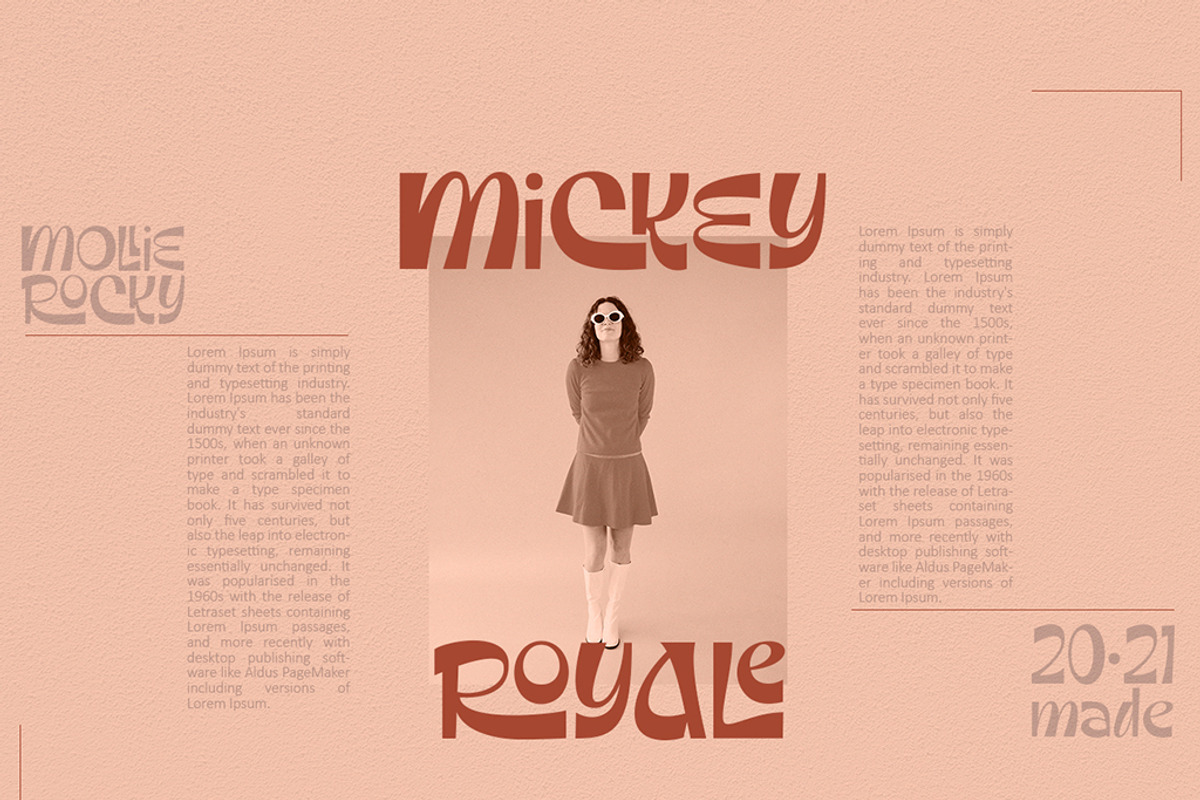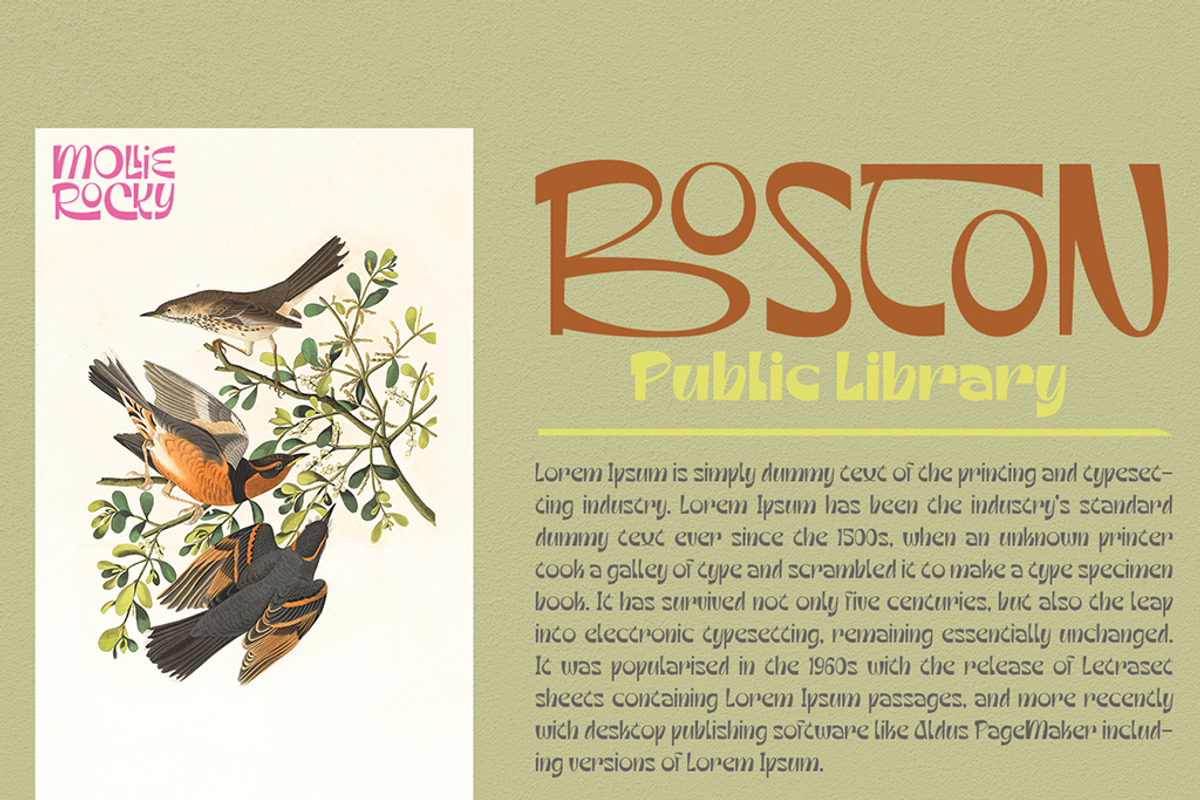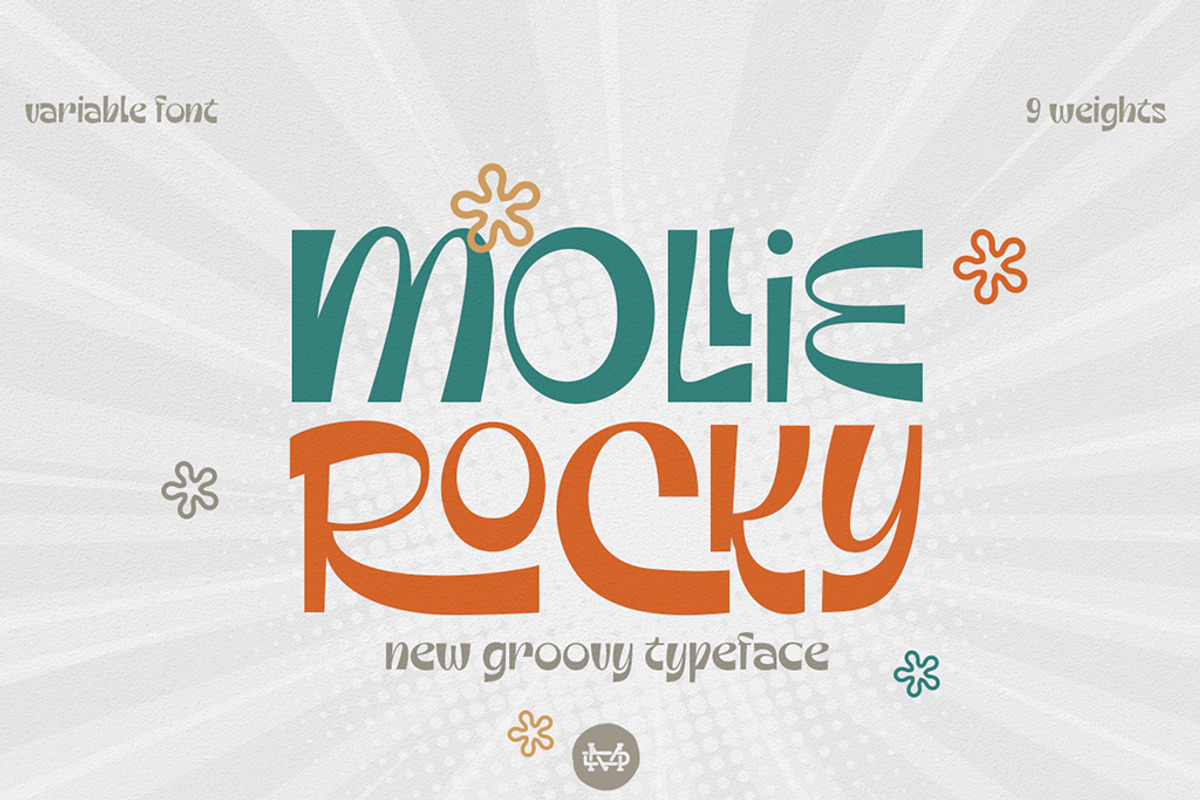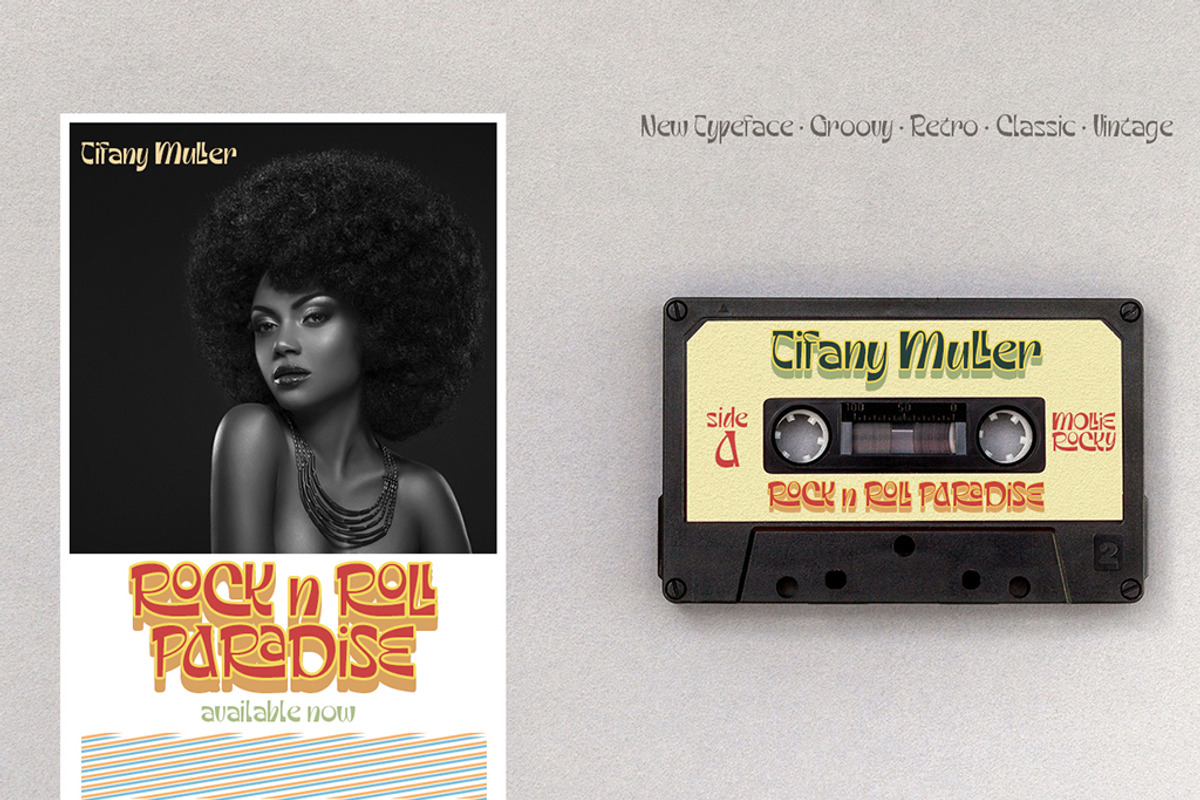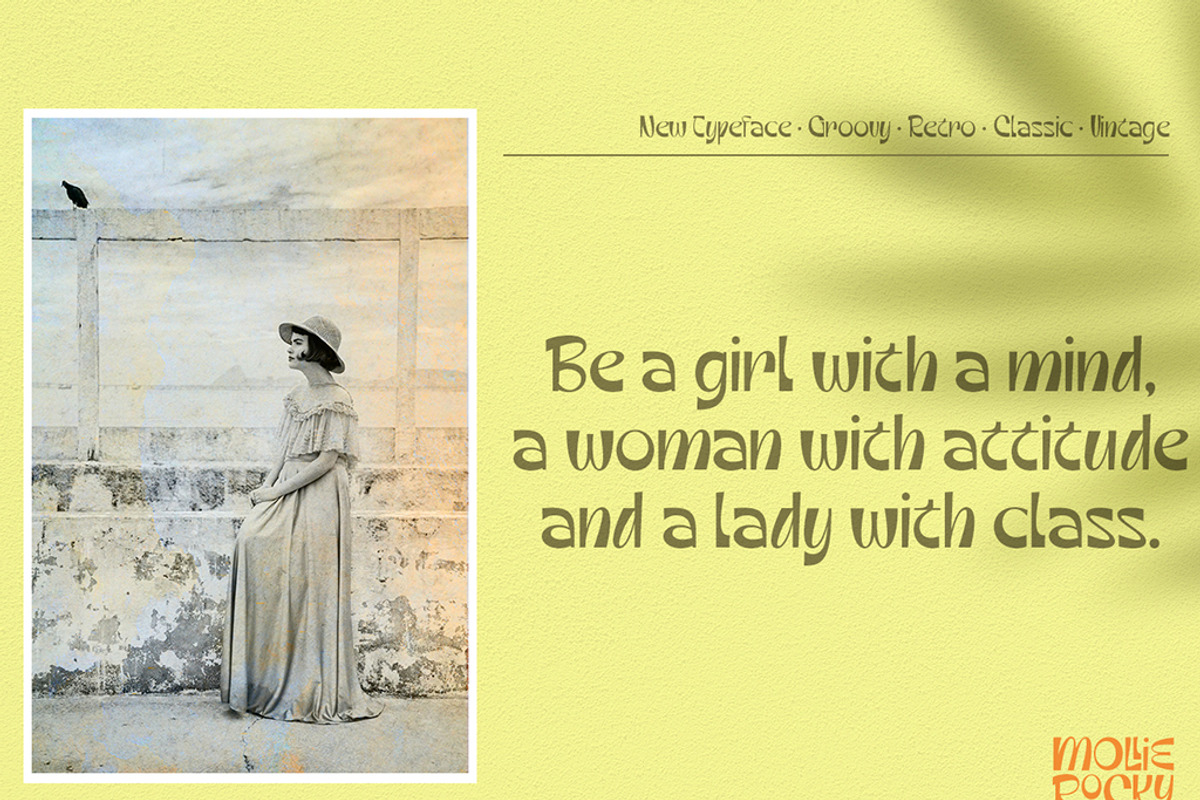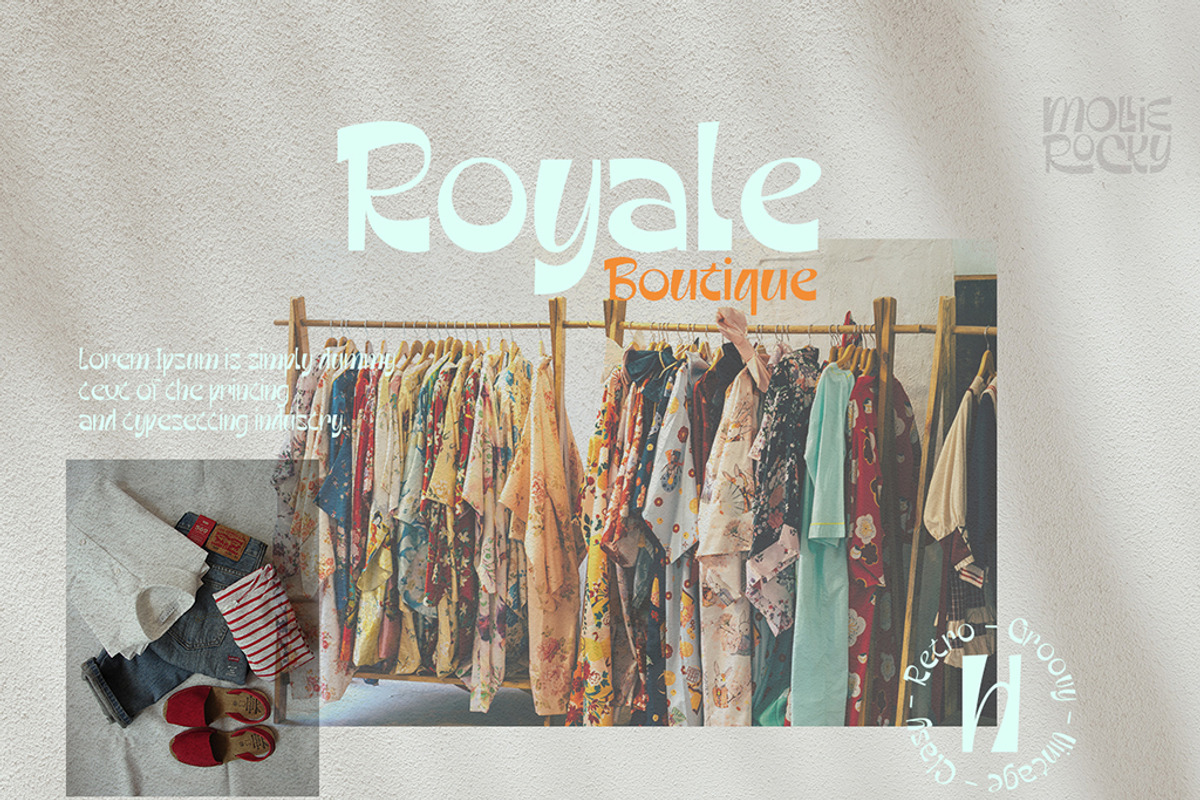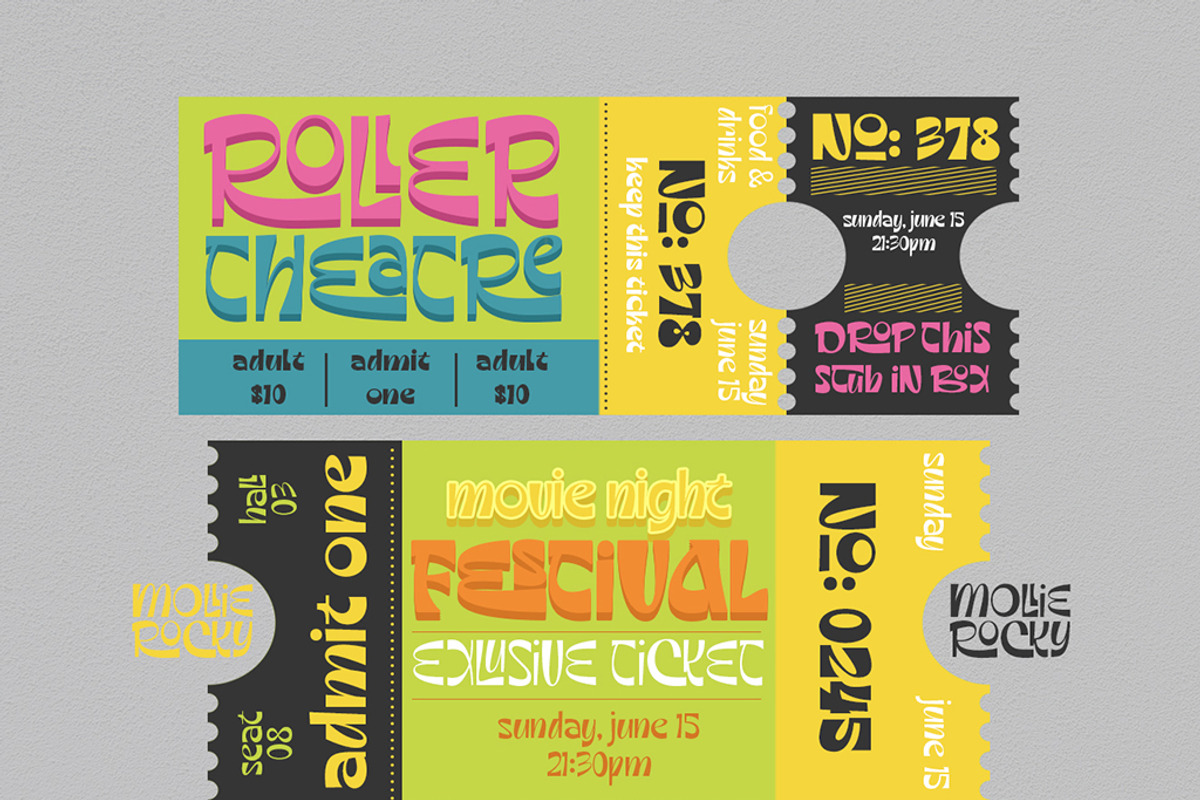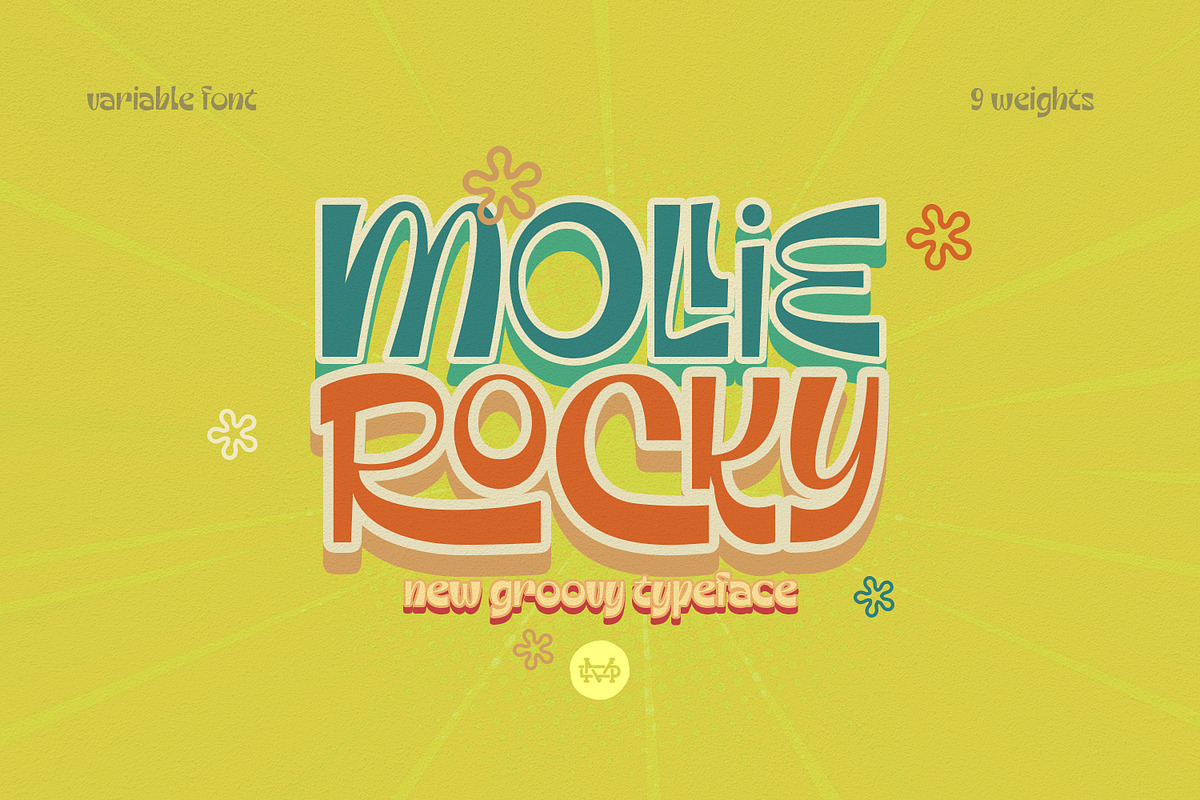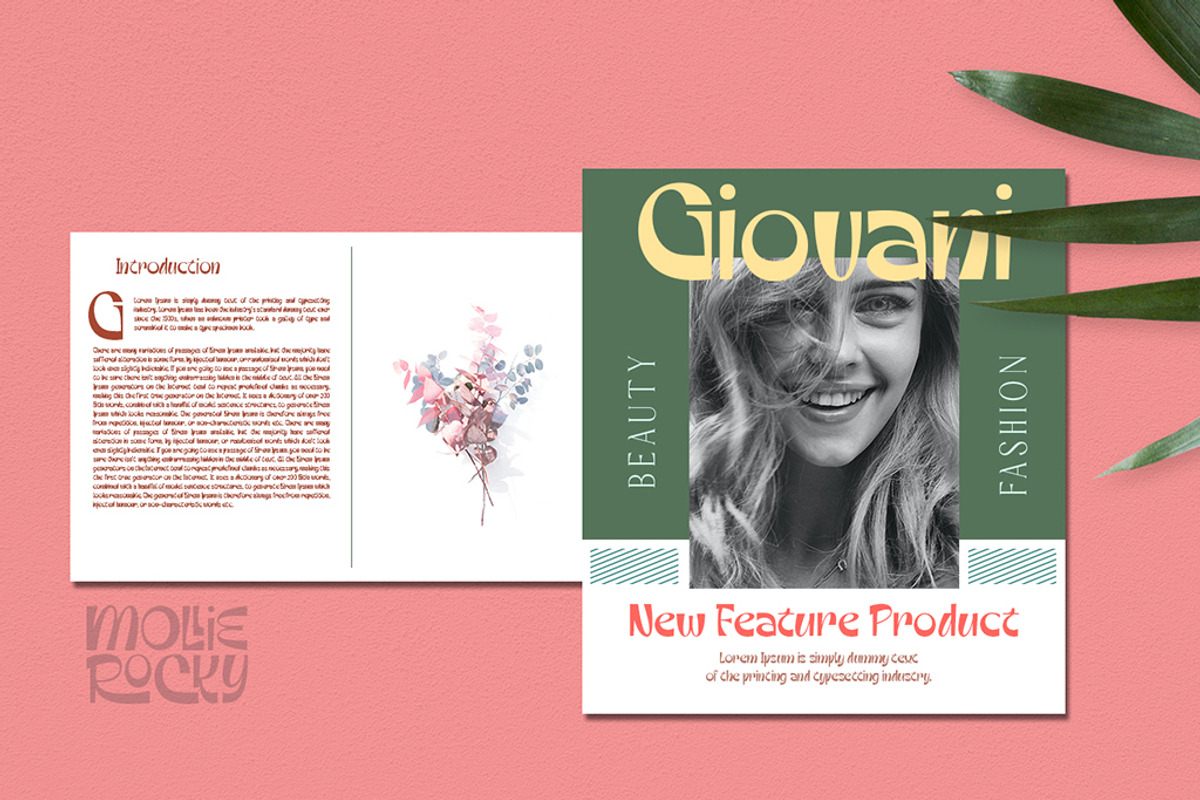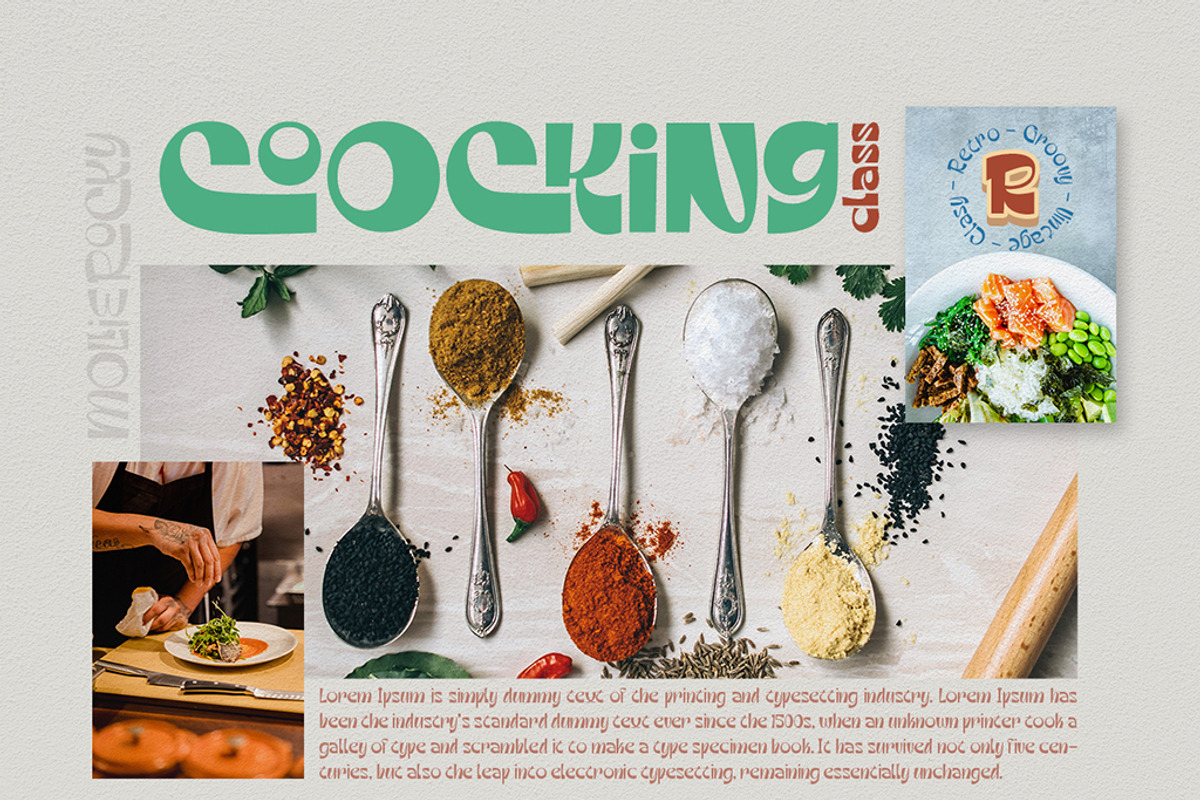
Mollie Rocky
Mollie Rocky is a modern groovy family font that is retro typography designs and stylish. The thick and thin stems of the each letters makes a unique retro font.